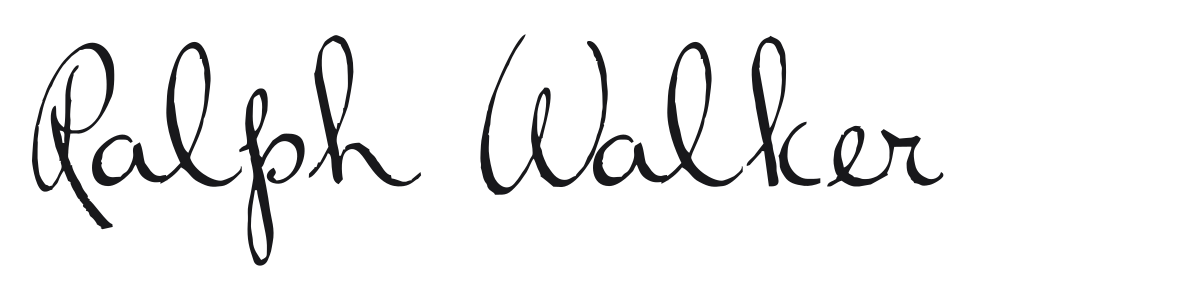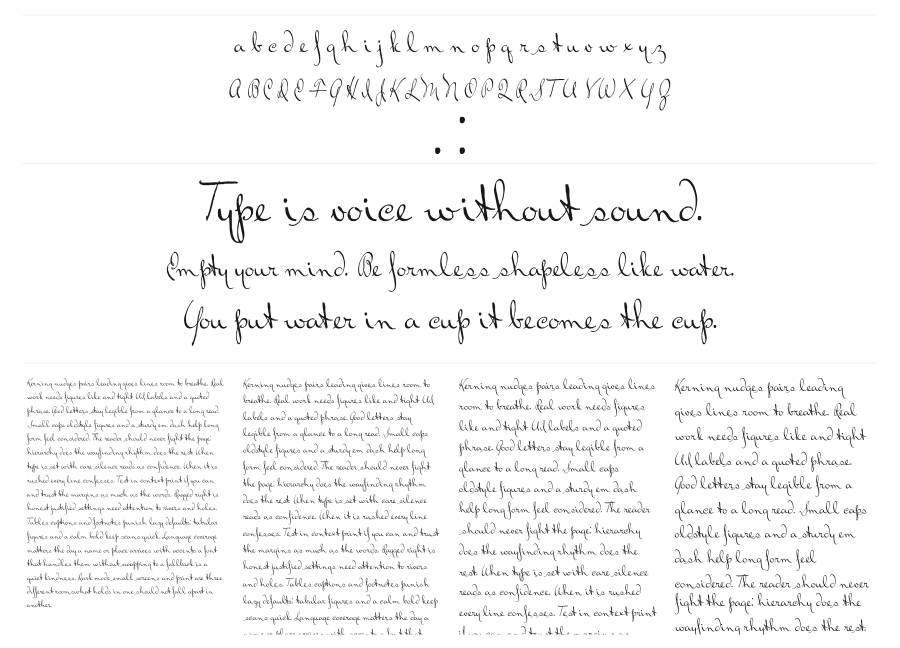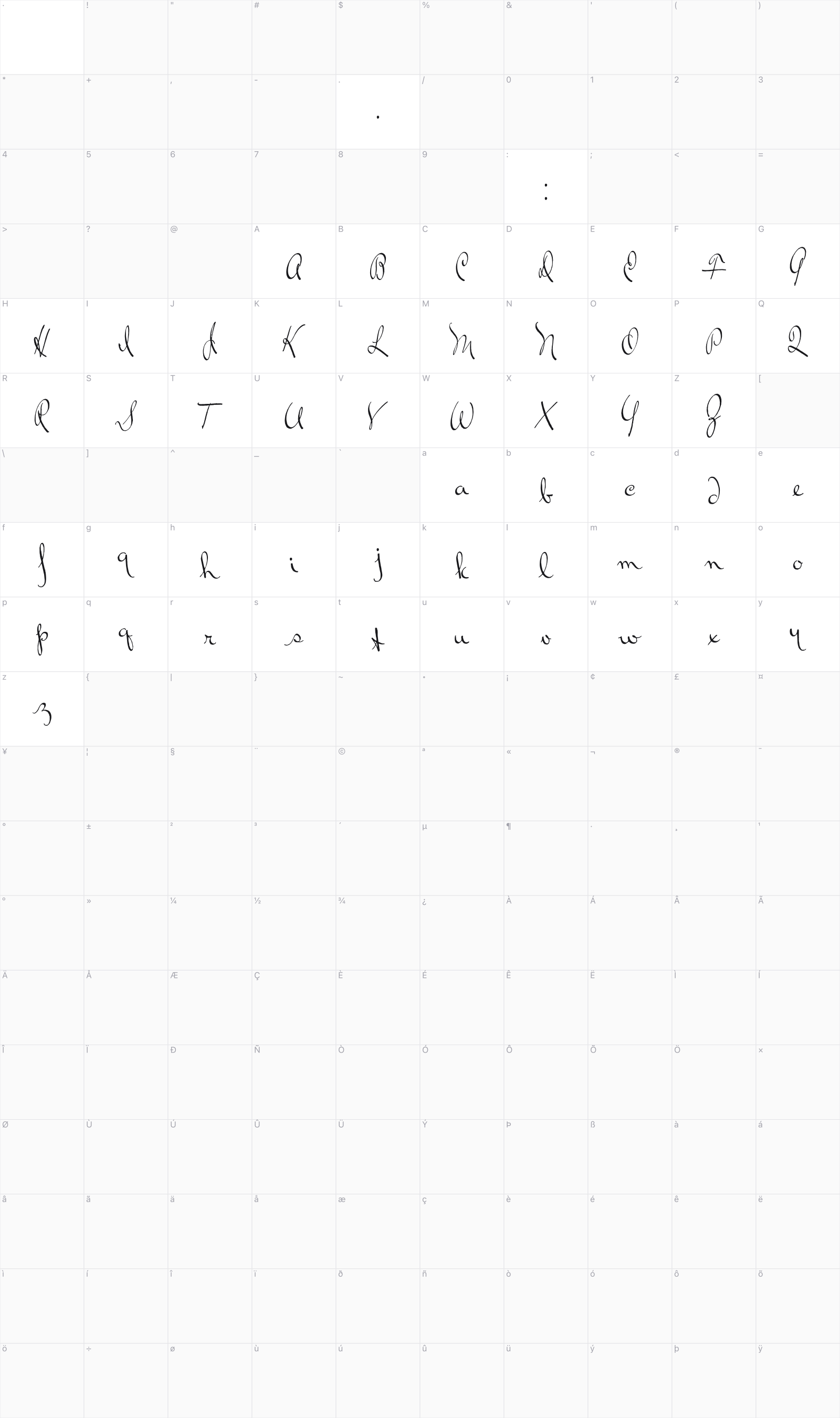
Ralph Walker
Ralph Walker is a lightweight handwritten face from Intellecta Design that captures the fluid, slightly uneven quality of a real pen signature. The thin strokes feel personal and unforced, closer to someone's actual handwriting than a polished script. It works well for personal branding, letterheads, invitations, or anywhere you want an authentic, informal human touch without heaviness.